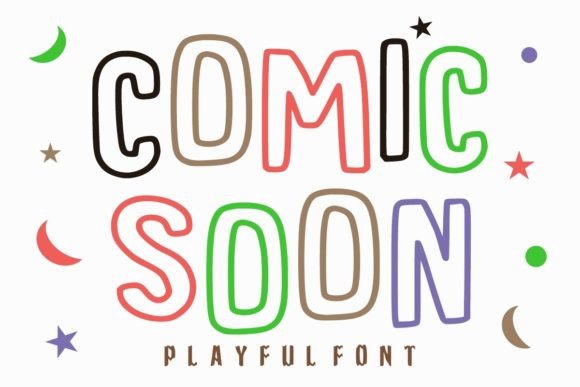
Introducing Comic Soon Font: The Playful and Adaptable Display Font
Are you looking for a font that can add a touch of friendliness and playfulness to your designs? Look no further than Comic Soon Font. This delightful font is designed to convey impeccable friendliness and is perfect for a variety of uses, from crafts and digital design to presentations and greeting cards.
What is Comic Soon Font?
Comic Soon Font is a playful outline and adaptable display font that is easy to read and conveys a sense of friendliness. Its unique outline design makes it stand out from other fonts, giving it a distinctive and eye-catching look. Whether you’re using it for personal or professional projects, Comic Soon Font is sure to make a lasting impression.
Key Features of Comic Soon Font
- Playful Outline Design: Comic Soon Font features a unique outline design that gives it a playful and fun look.
- Adaptable: This font is highly adaptable and can be used for a variety of purposes, from digital design to print materials.
- Easy to Read: Despite its playful design, Comic Soon Font is easy to read, making it perfect for use in body text or headings.
- Conveys Friendliness: The font’s design is carefully crafted to convey a sense of friendliness and approachability.
Uses for Comic Soon Font
Comic Soon Font is a versatile font that can be used for a wide range of purposes. Here are some ideas to get you started:
- Crafts: Use Comic Soon Font to add a personal touch to your craft projects, such as scrapbooking, card making, or DIY gifts.
- Digital Design: This font is perfect for use in digital design, including social media graphics, blog posts, and website headers.
- Presentations: Add a touch of personality to your presentations with Comic Soon Font, making them more engaging and fun.
- Greeting Cards: Use Comic Soon Font to create personalized and playful greeting cards for special occasions.
Why Choose Comic Soon Font?
With so many fonts available, why choose Comic Soon Font? Here are just a few reasons:
- Unique Design: Comic Soon Font features a unique outline design that sets it apart from other fonts.
- Ease of Use: This font is easy to read and use, making it perfect for a wide range of projects.
- Friendliness: The font’s design conveys a sense of friendliness and approachability, making it perfect for projects where you want to connect with your audience.
- Versatility: Comic Soon Font is highly adaptable and can be used for a wide range of purposes.
Tips for Using Comic Soon Font
Here are a few tips for getting the most out of Comic Soon Font:
- Use it for Headings: Comic Soon Font is perfect for use in headings and titles, where its playful design can really shine.
- Pair it with Other Fonts: Try pairing Comic Soon Font with other fonts to create a unique and interesting look.
- Experiment with Colors: Don’t be afraid to experiment with different colors and textures to really make Comic Soon Font pop.
Comic Soon Font is a playful and adaptable display font that is perfect for adding a touch of friendliness to your designs. With its unique outline design, ease of use, and versatility, it’s no wonder that this font is quickly becoming a favorite among designers and crafters. Whether you’re using it for crafts, digital design, presentations, or greeting cards, Comic Soon Font is sure to become your go-to font.